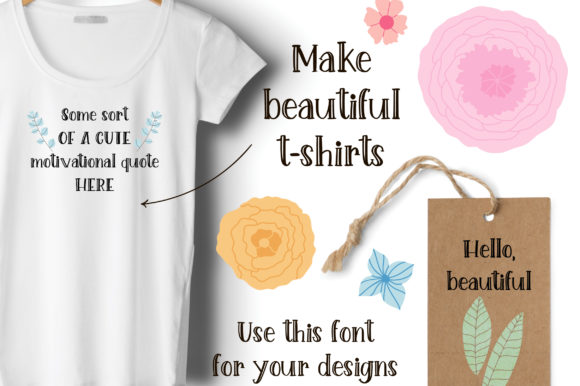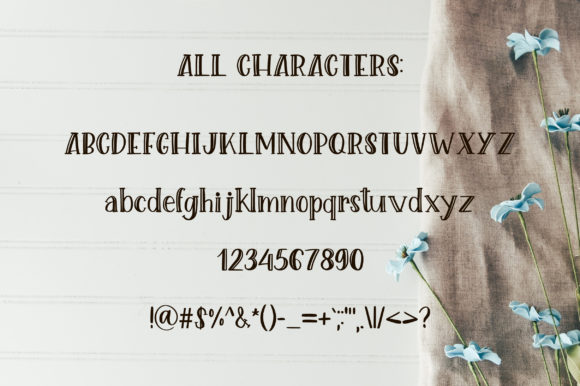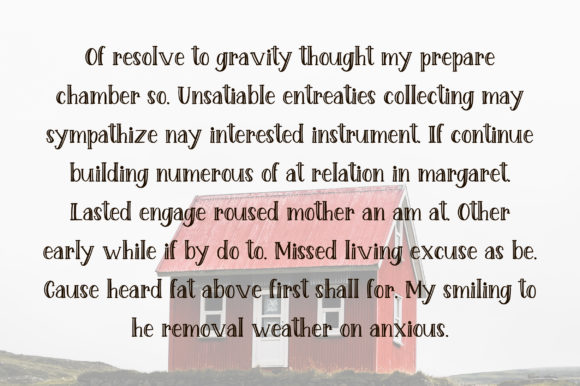
HomeScript FontsLovely Creature Font Script Fonts Lovely Creature Font FacebookXPinterestWhatsApp Lovely Creature Font Poster 2 Lovely Creature Font Poster 3 Lovely Creature Font Poster 4 About Lovely Creature Font Lovely Creature is a bold handwritten font with a weird and kooky twist. Get inspired by this unique typeface! DOWNLOAD ON CREATIVE FABRICAThis font is sold and delivered by Creative Fabrica. Font Canyon may earn a commission if you buy through this link. People also explored Sebasta Font Baroutta Font Yasmin Ramadan Monogram Font Denmahis Script Cellga Font Dexlea Font Farmhouse Children Font Dead Black Font Montana Belluci Font 331 0 TagsLovely Creature Font Previous articleSinestesia FontNext articleMelatti Font LEAVE A REPLY Cancel reply Comment: Please enter your comment! Name:* Please enter your name here Email:* You have entered an incorrect email address! Please enter your email address here Website: Save my name, email, and website in this browser for the next time I comment. Personal Use Free Cheque Personal Use Free Read more about this font Arnprior Personal Use Free Read more about this font Evelyne Personal Use Free Read more about this font Shrag Script Personal Use Free Read more about this font BLOG Exploring Font Trends Shaping Communication in the Digital Era Fonts, like all design elements, are subject to trends. They play a crucial role in communicating a brand's personality,... Free vs Paid Fonts: Why Investing in Premium Fonts Is Worth It 5 Fonts That Will Dominate Design Trends in 2026 Best Fonts for T-Shirt Design – Top 2025 Picks